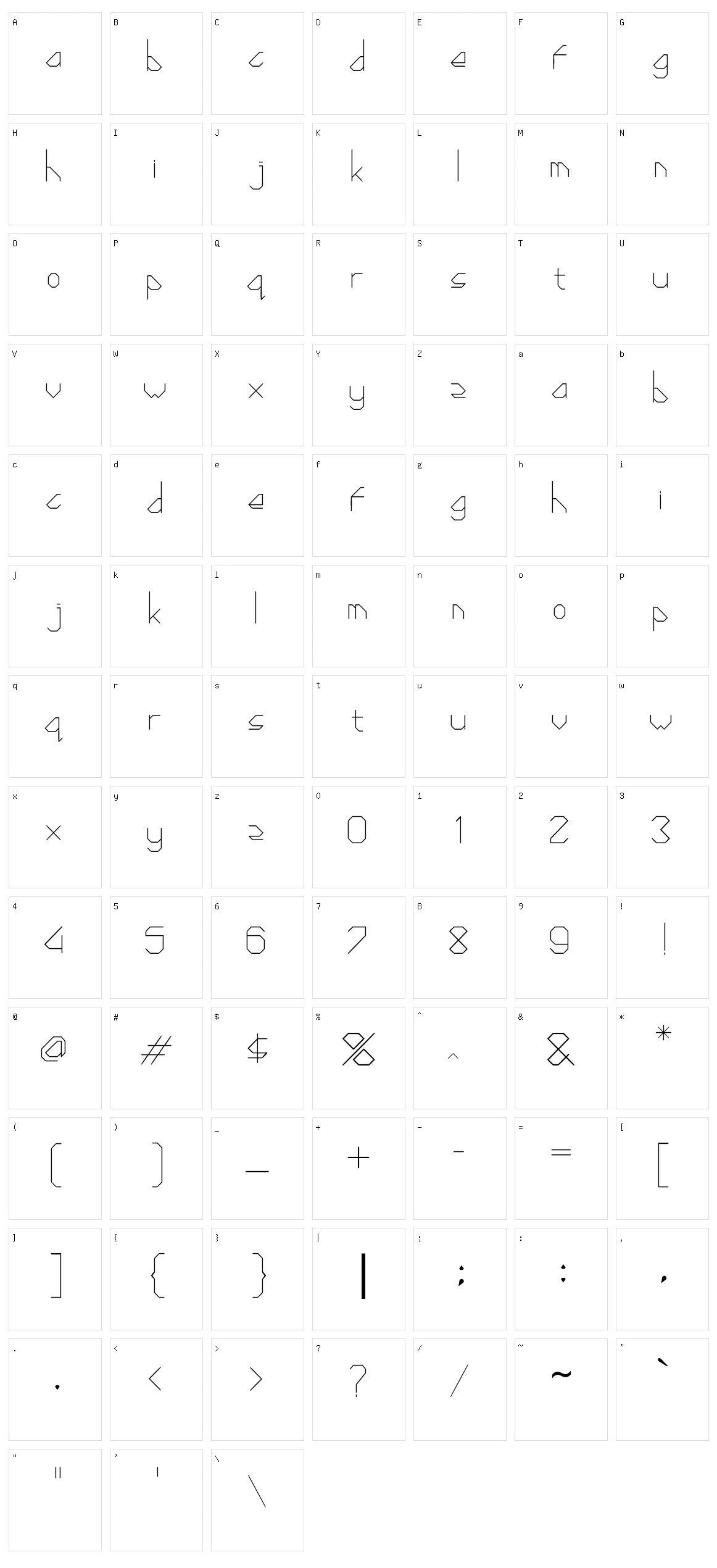
The free font Diamond Cut is carefully designed by Yanto Purnomo, showcasing a thoughtful balance of creativity and usability and belongs to the Techno font family. When you download the ZIP file, it contains only 5.63 KB of font files, making it lightweight and quick to download. Please review the license details below to understand permitted usage and distribution rights. If license information is not available, we recommend using this font for personal projects only or contacting the author directly for commercial usage permissions.